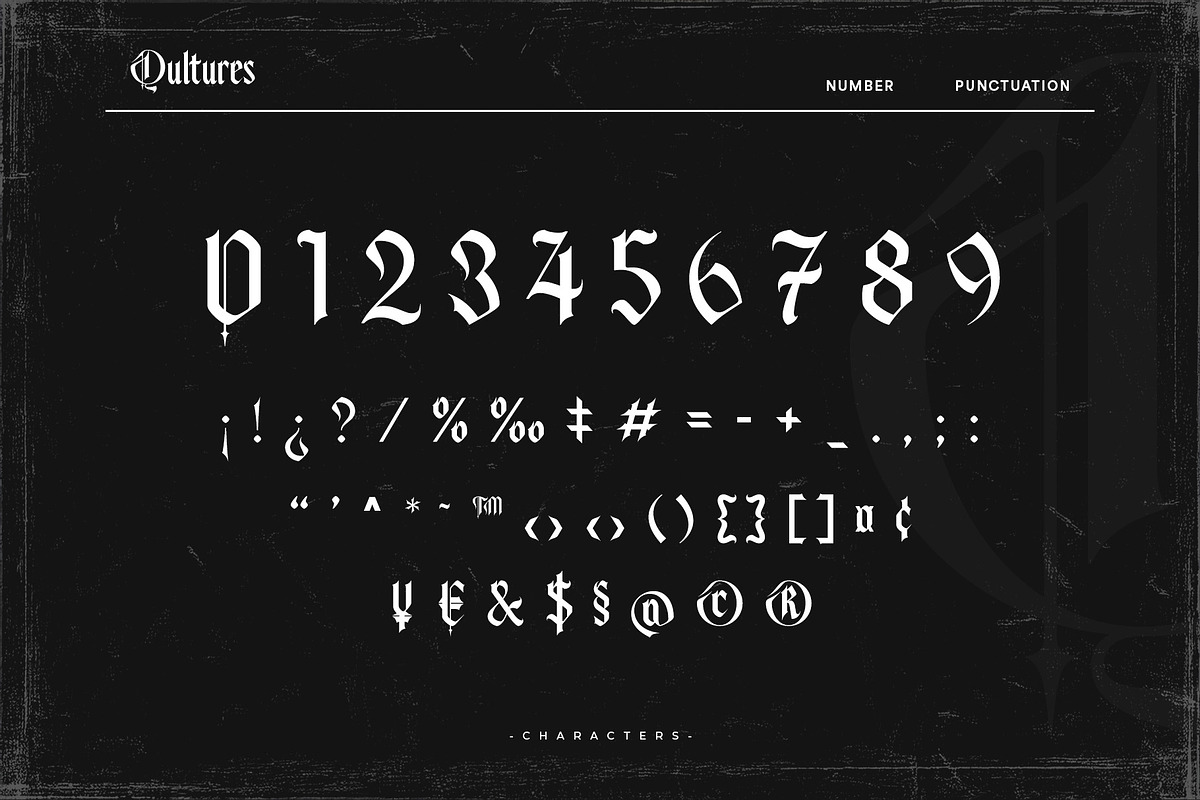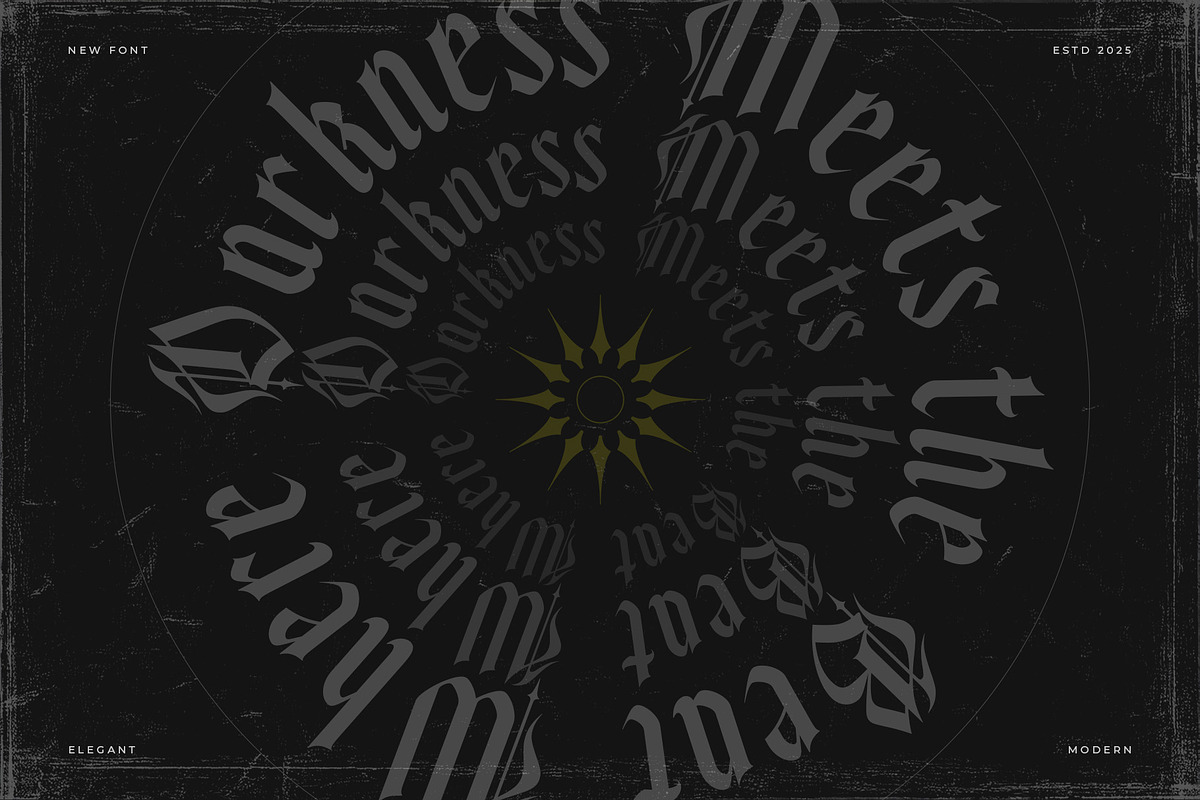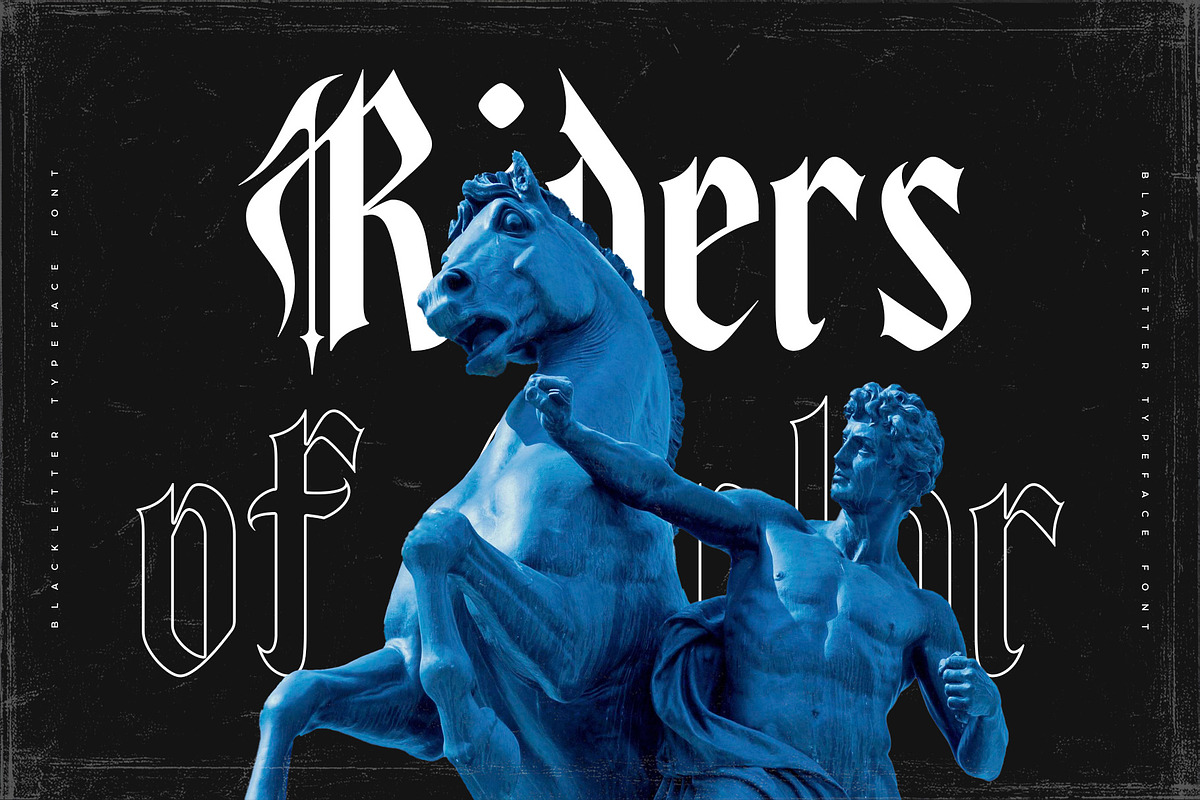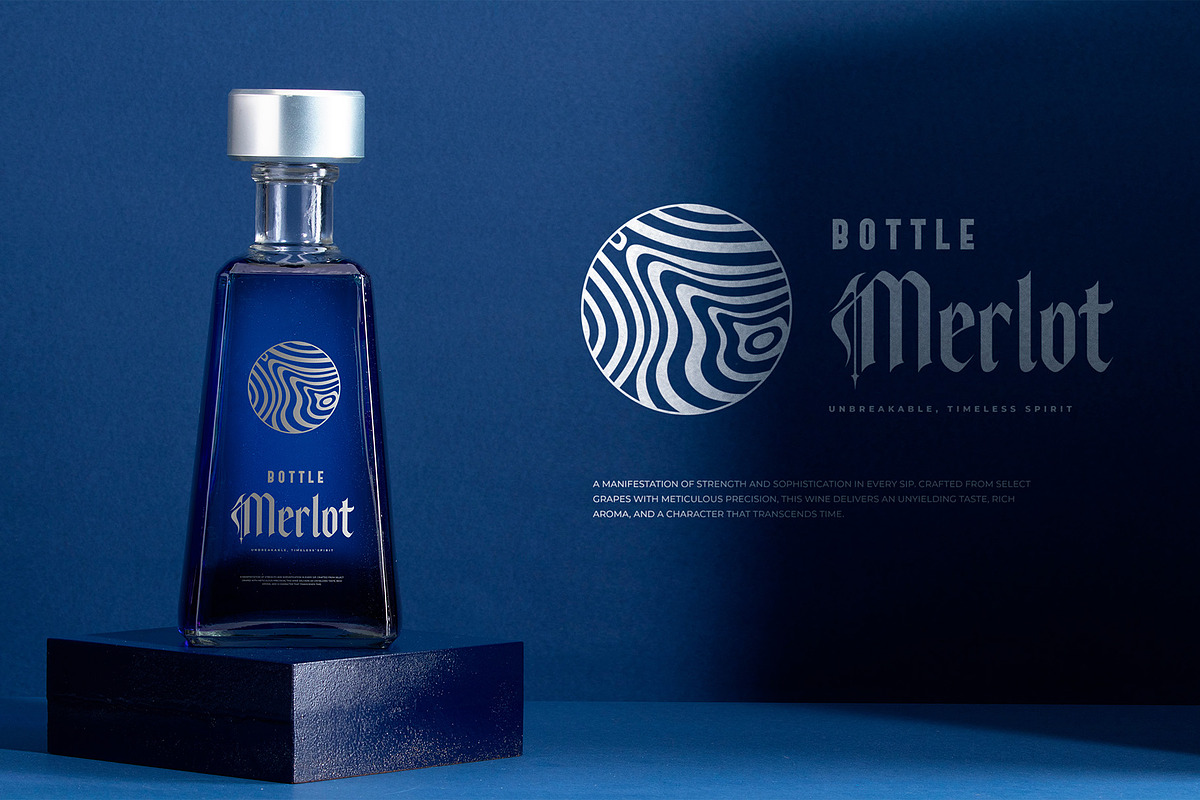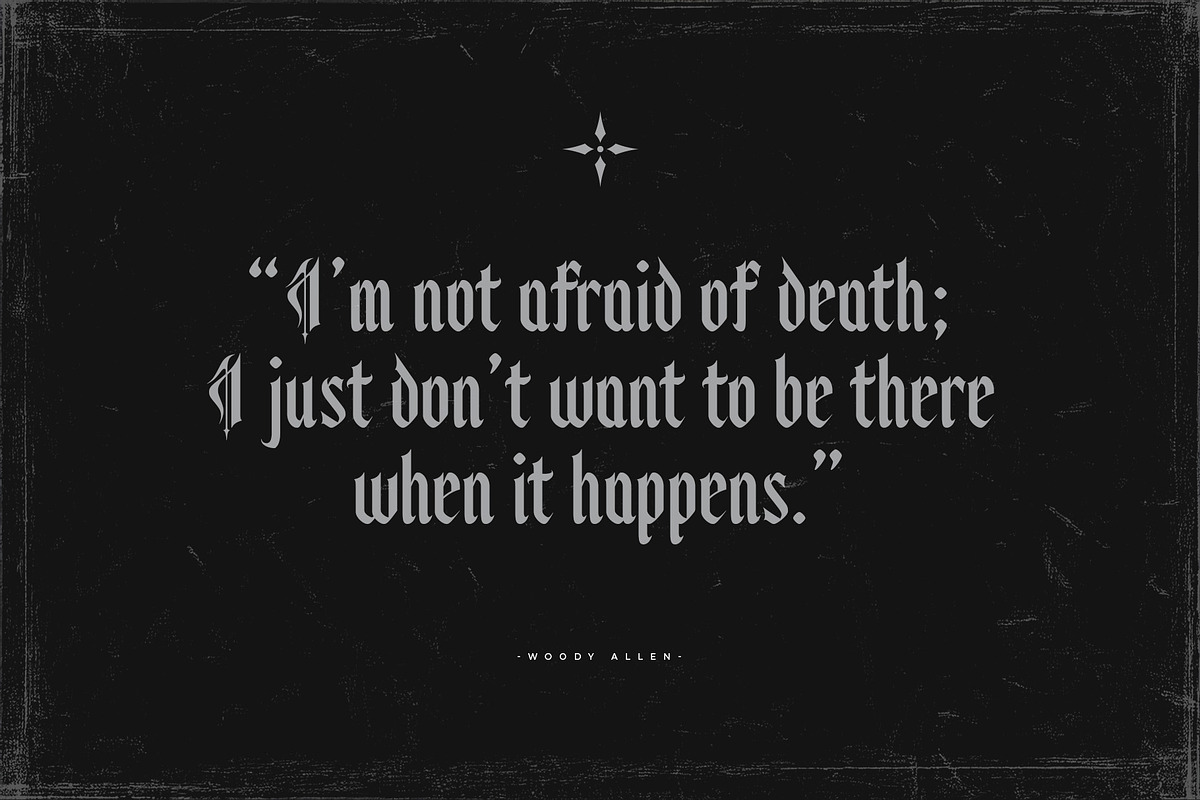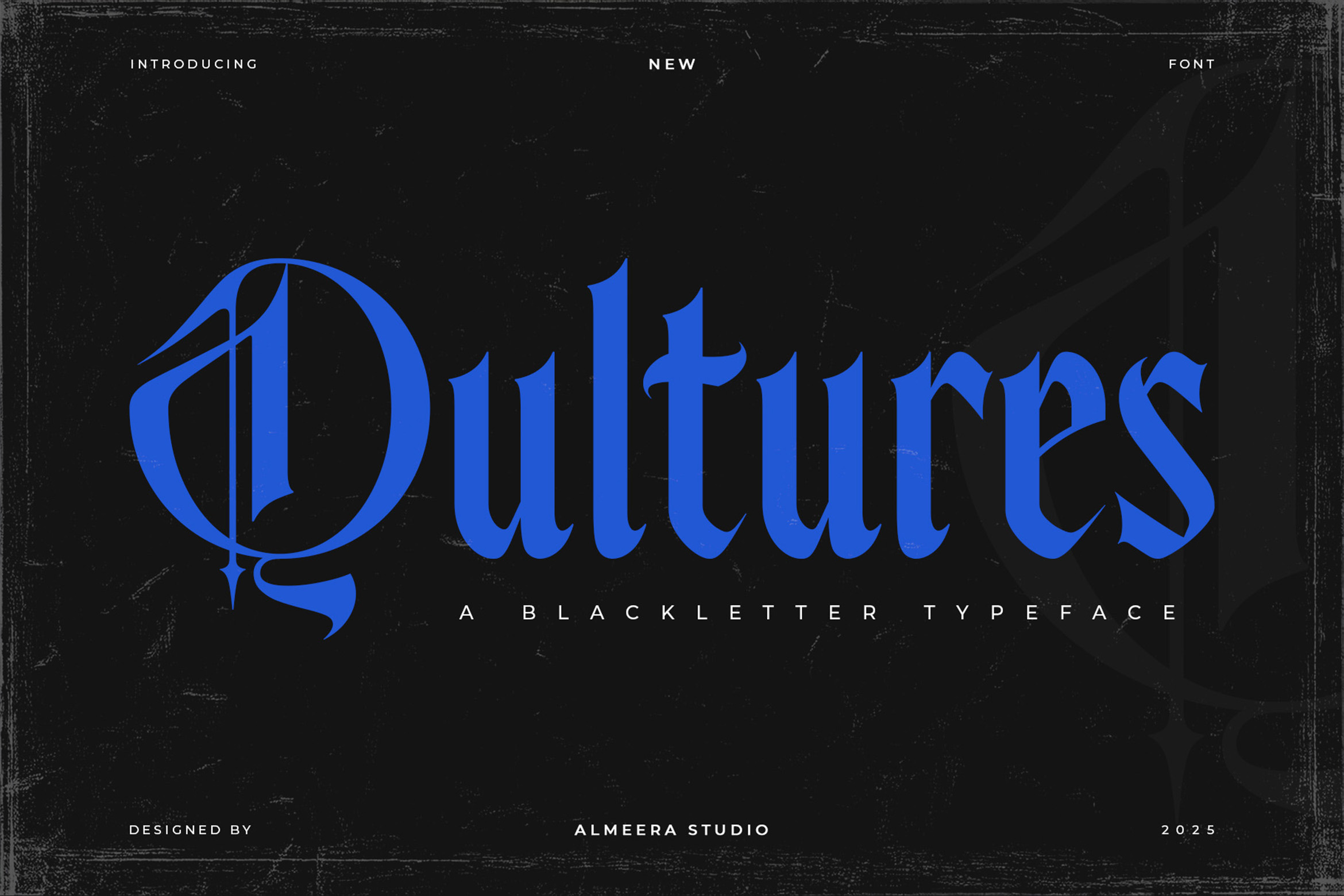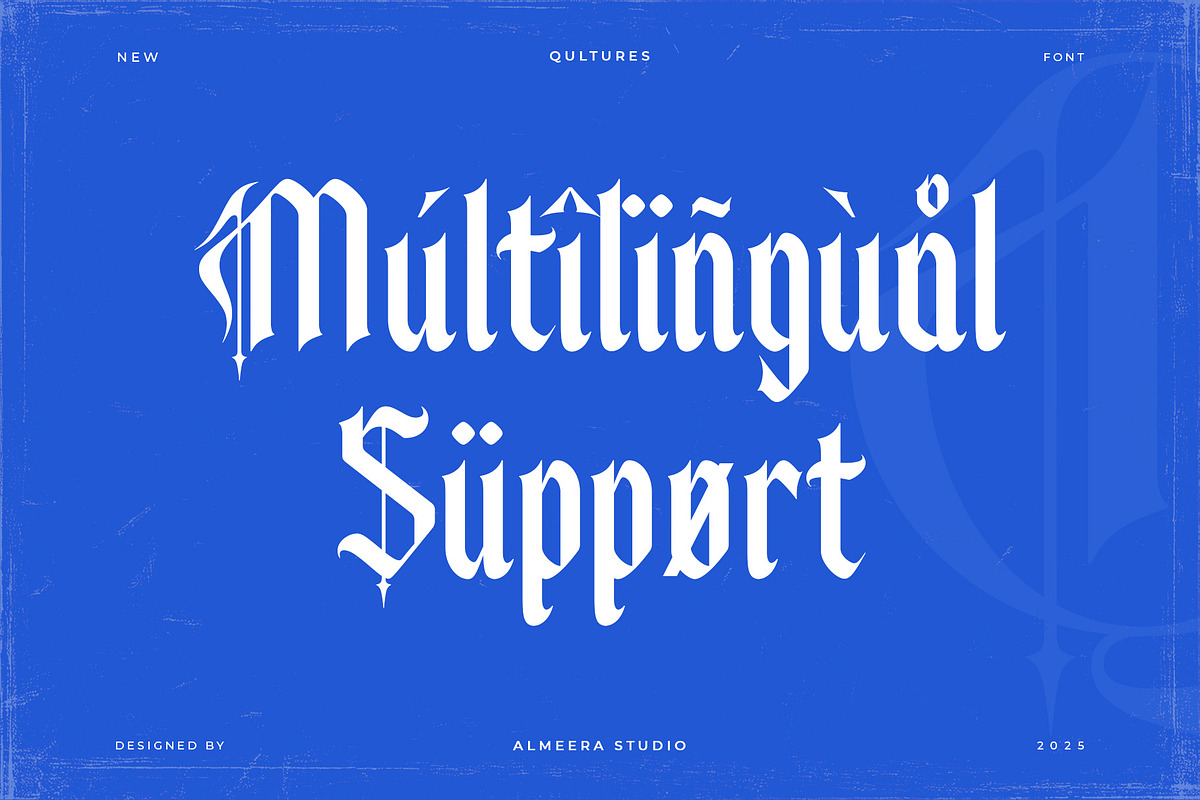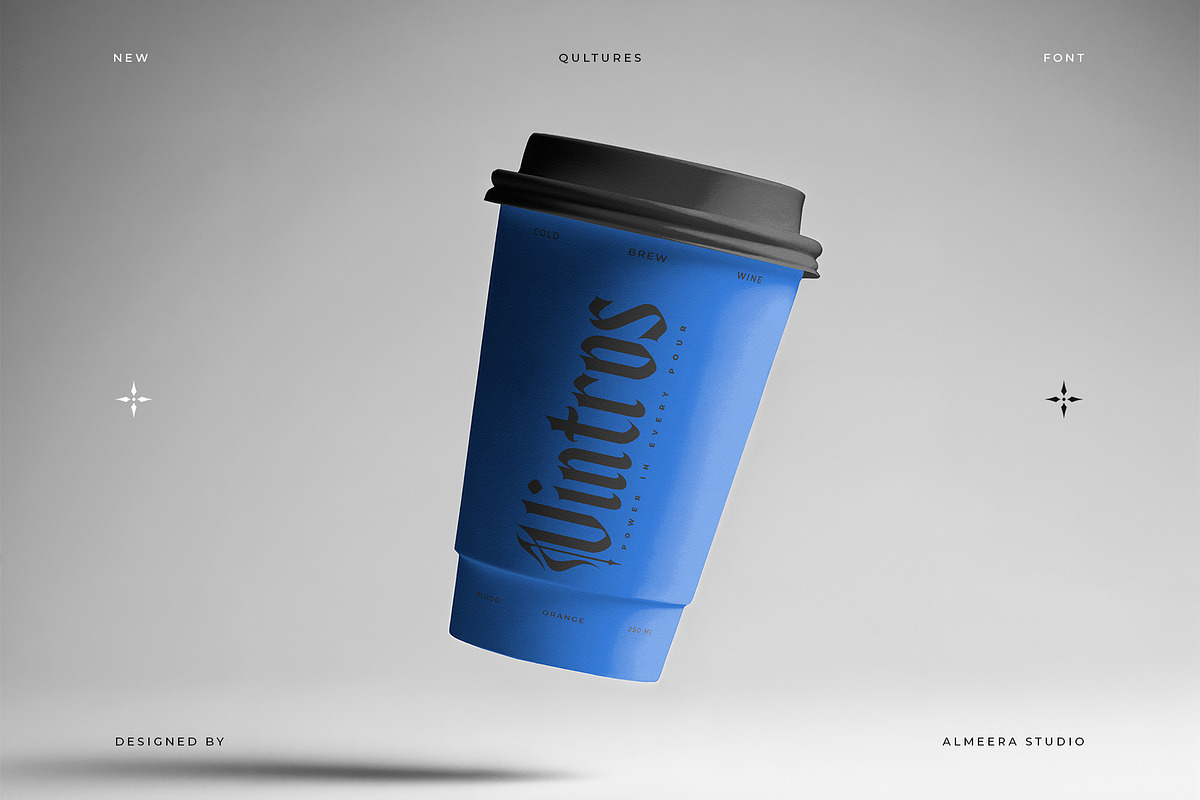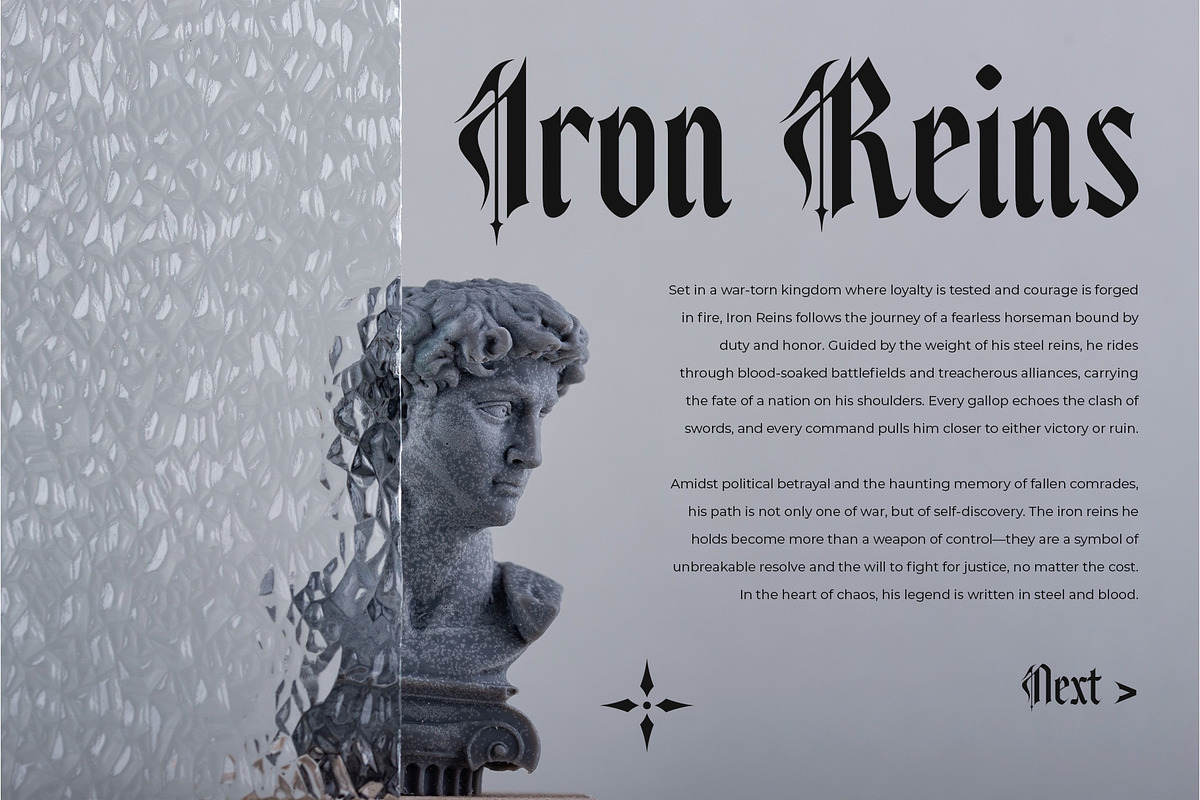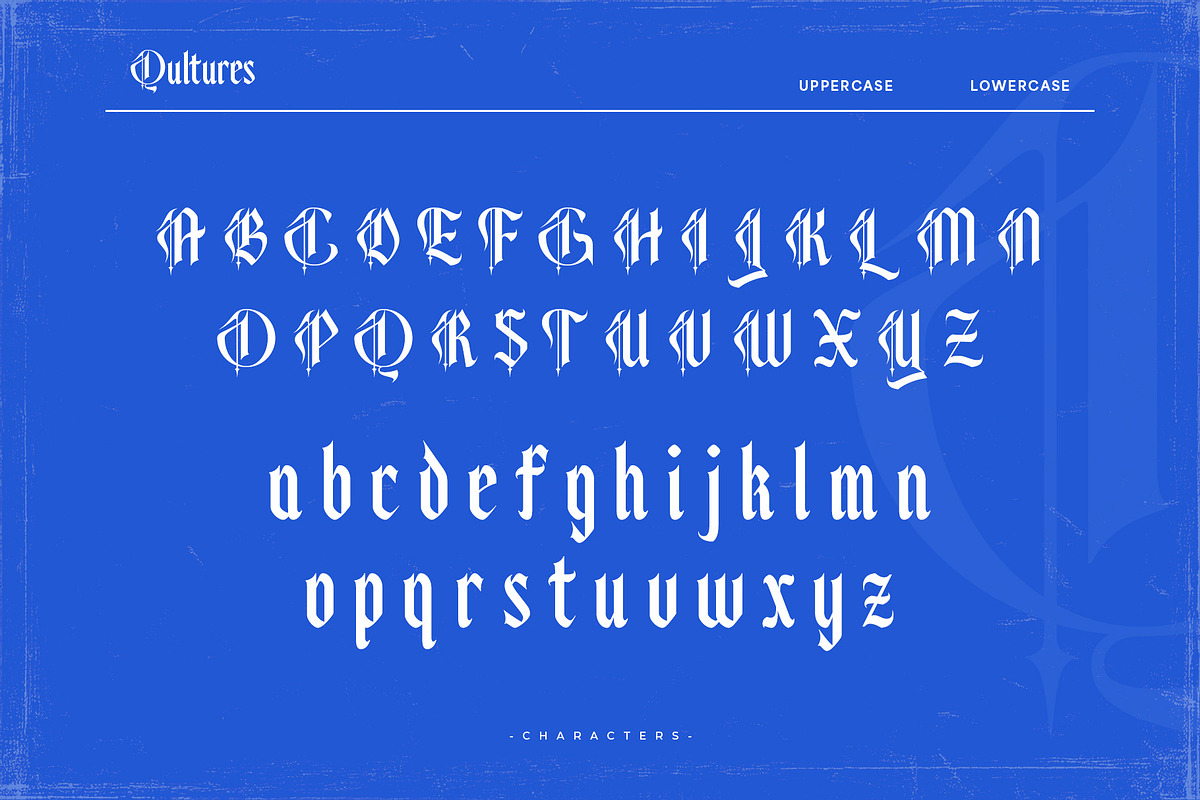
Qultures – Blackletter Typeface
Introducing Qultures, a bold and dramatic blackletter typeface inspired by gothic traditions and medieval artistry. This font is perfect for projects that demand powerful character and strong visual impact, such as tattoos, rock band posters, merchandise, logos, and dark-themed branding.
Qultures delivers an authentic old-world feel with a modern edge, combining heavy strokes and sharp details. Designed with versatility in mind, it includes numerals, punctuation, multilingual support, and works across all major design software.
- Full uppercase & lowercase characters
- Authentic blackletter style with bold strokes
- Strong medieval & gothic feel
- Great for tattoos, posters & merchandise
- Numerals & punctuation included
- Multilingual support for extended Latin